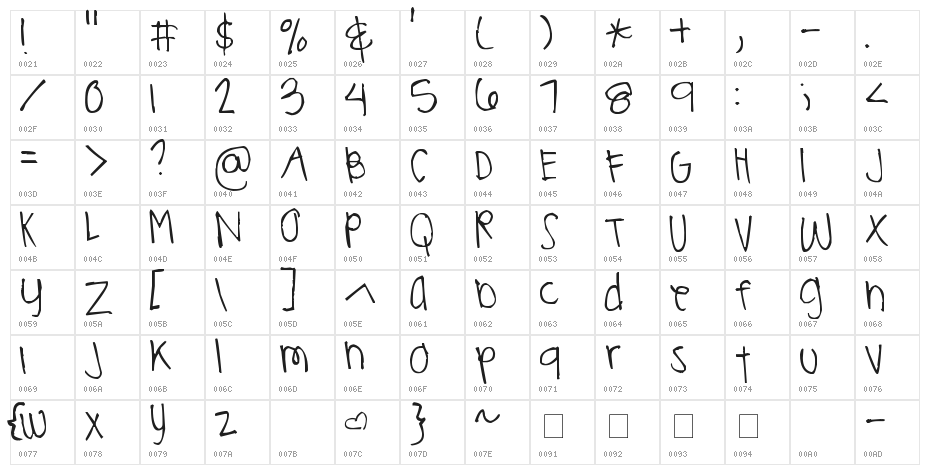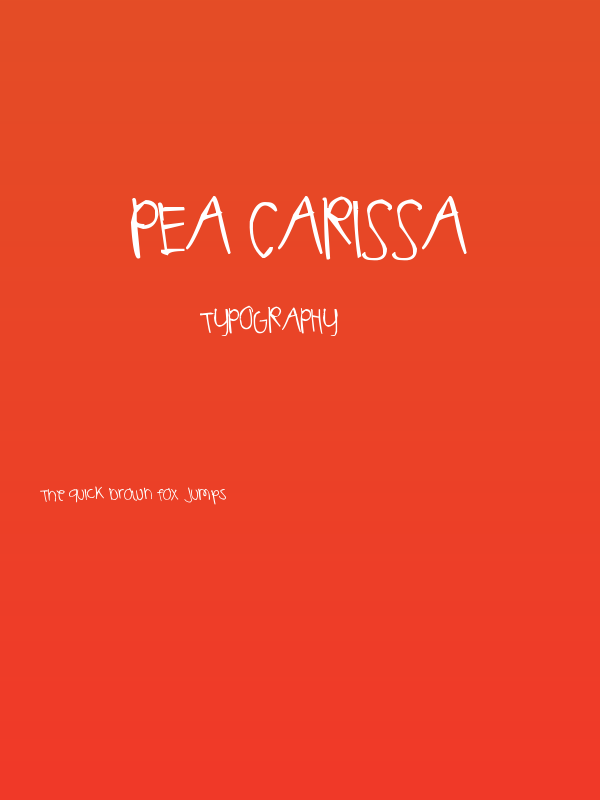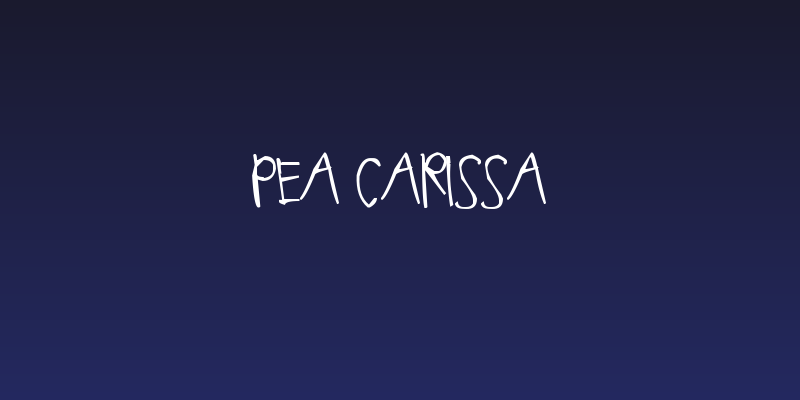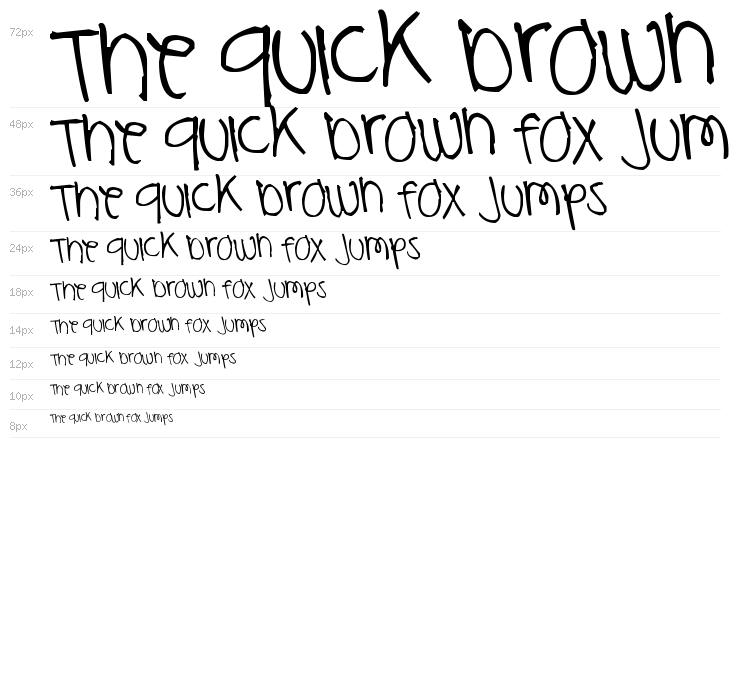
Pea Carissa Font
Pea Carissa Description
This font exudes a playful and casual handwritten style, characterized by its uneven strokes and slightly irregular letterforms. The letters are tall and narrow, giving it a unique, personal touch that mimics natural handwriting. The uppercase and lowercase letters maintain a consistent style, with the uppercase being slightly more pronounced. Numbers and special characters follow the same informal aesthetic, making the font versatile for creative projects. The overall appearance is friendly and approachable, ideal for adding a personal touch to any design.
Overall StyleCasual
Use CaseLogos, Headlines, Informal Text
Proposed ProjectsIdeal for greeting cards, personal notes, scrapbooking, and informal branding projects.